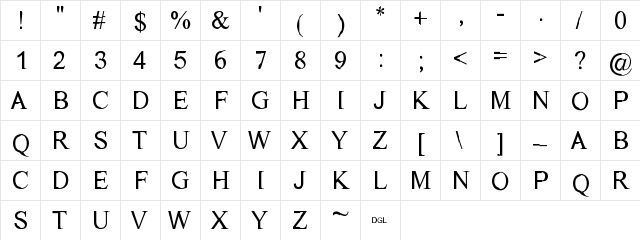
Di(20 Regular
Design Context for Di(20 Typeface
Di(20 offers clean, dependable letterforms without strong stylistic allegiance, making it a practical choice for designers who need flexibility.
Pro Tip: Use Di(20 in both headline and body roles to test its range before committing to a single application.